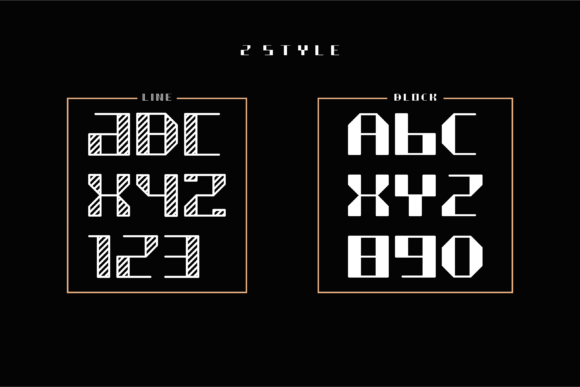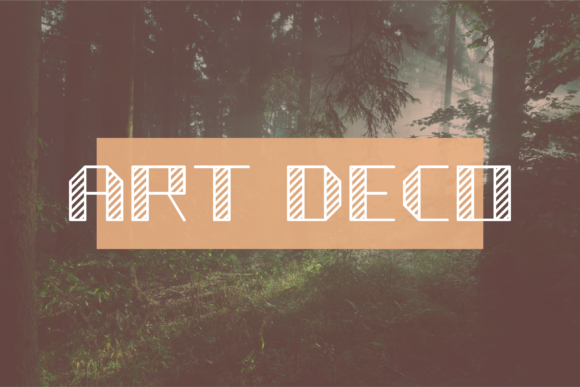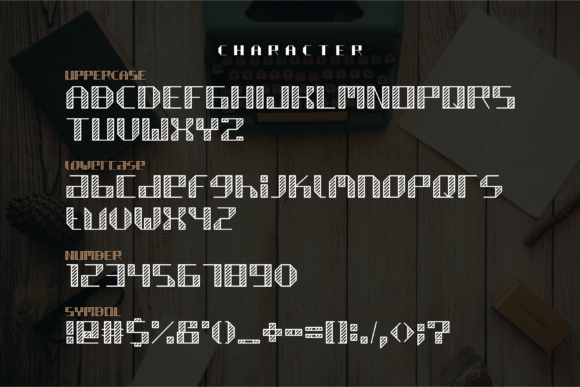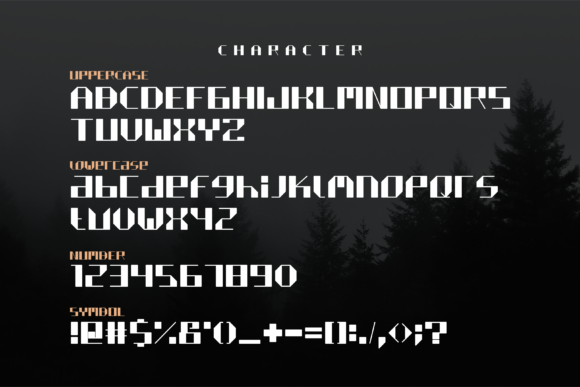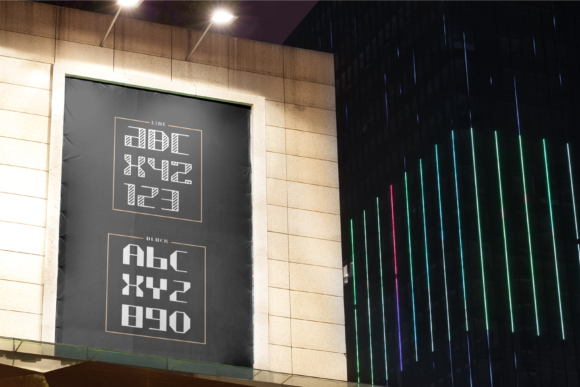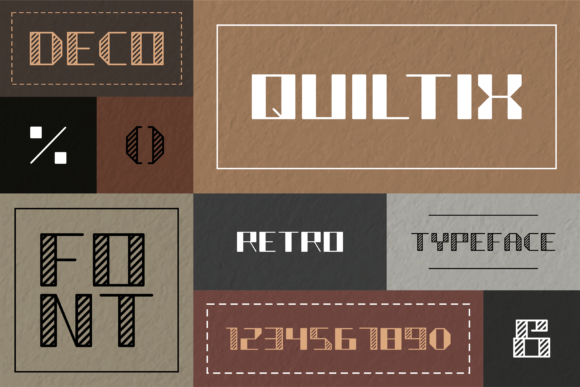
Introduction to Quiltix Font
Quiltix is a unique typeface with uppercase and lowercase letters, numbers and punctuation.
Ideal for decoration vintage and retro products, but it also works really well in modern and classic styles The Quiltix comes in two versions: Line and Block.
Key Features of Quiltix Font